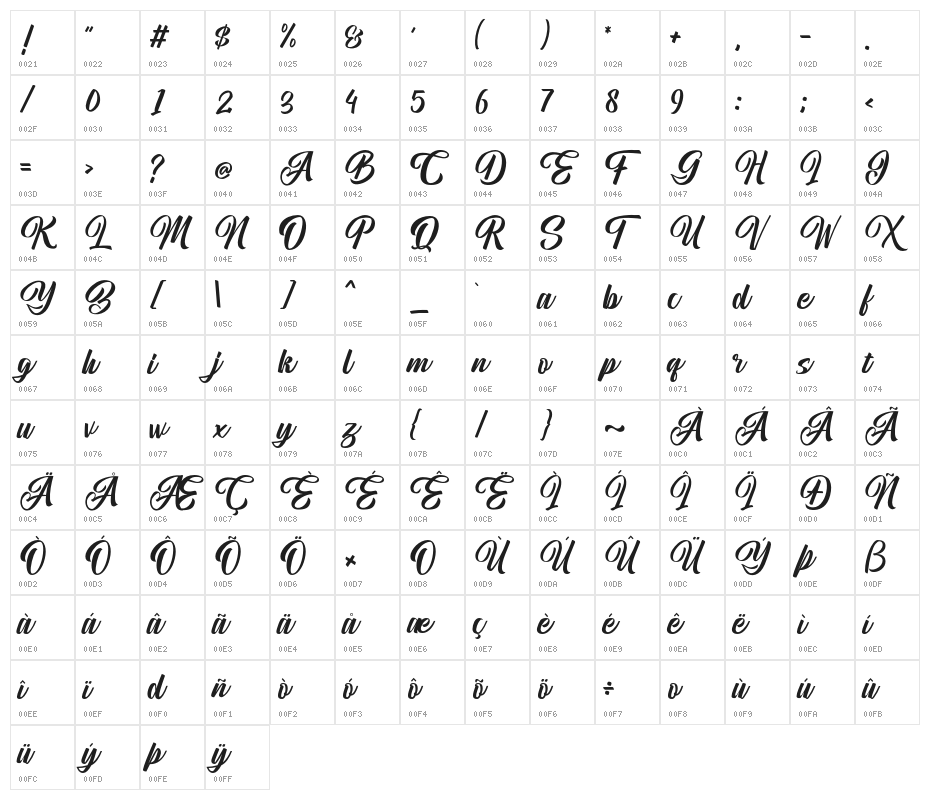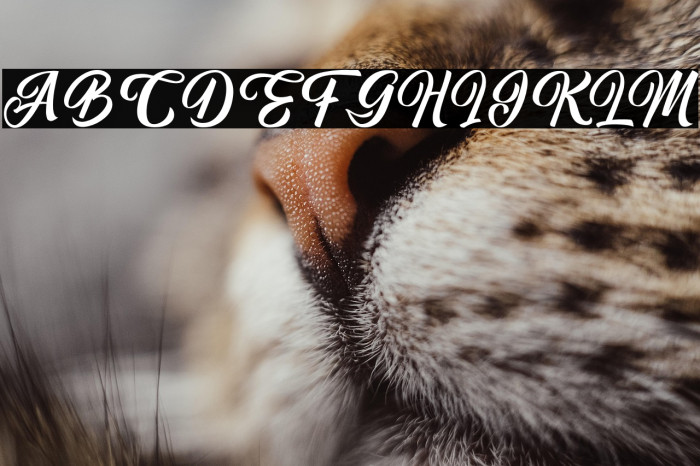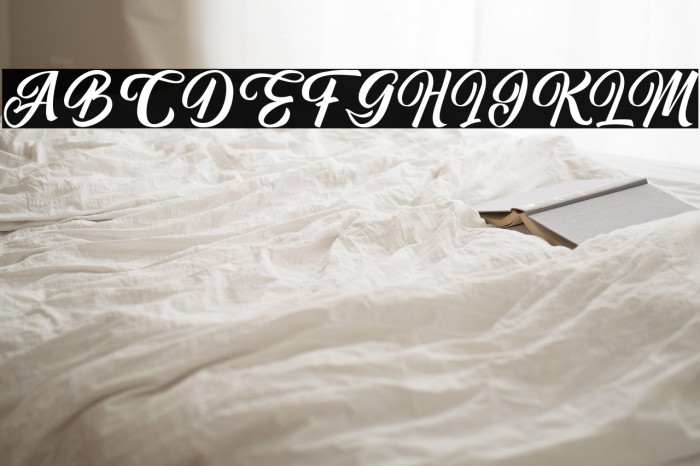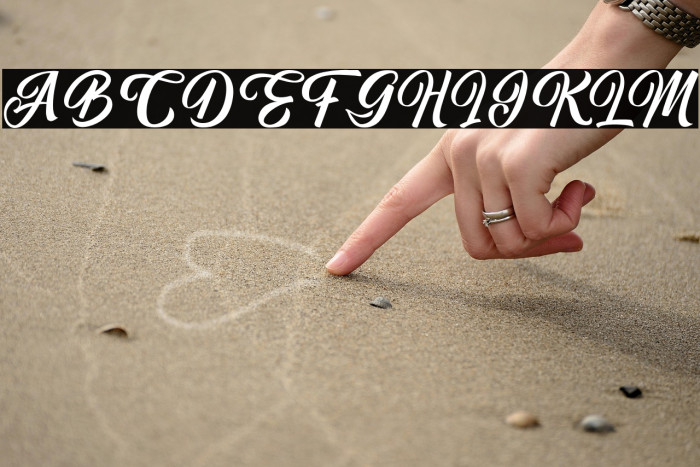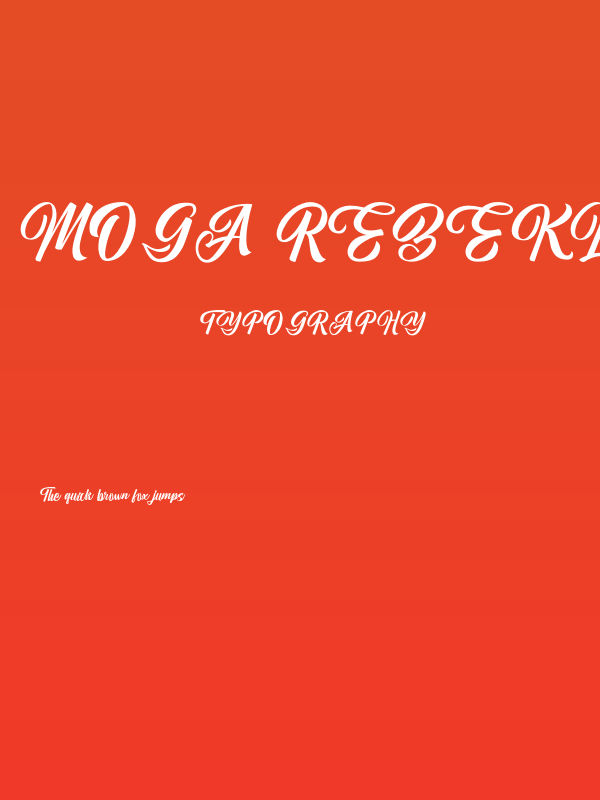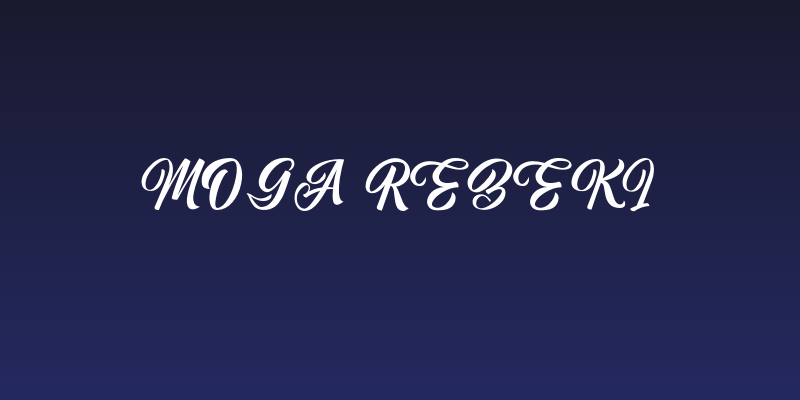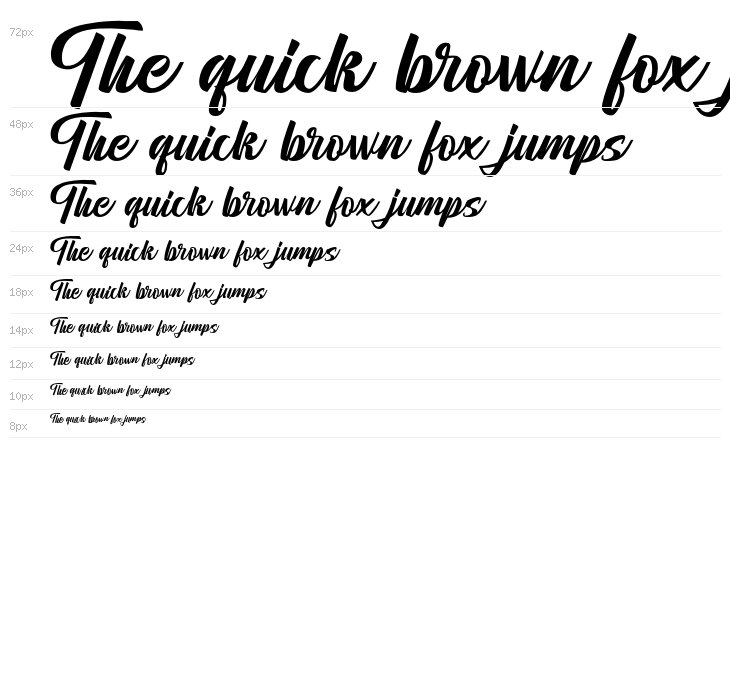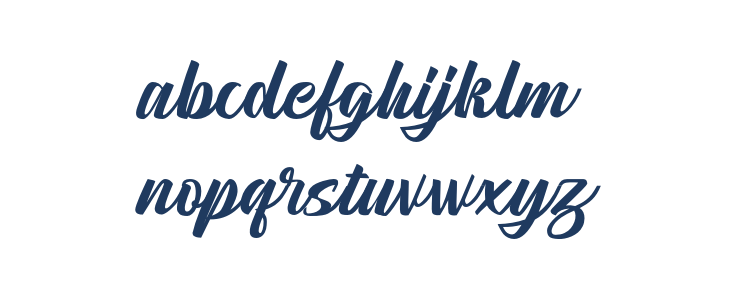
Moga Rezeki Font
Moga Rezeki Description
This font features a bold and flowing script style, characterized by its elegant and cursive letterforms. The uppercase letters are ornate with sweeping curves and flourishes, while the lowercase letters maintain a consistent, smooth flow. The numerals are distinct and maintain the same bold, cursive style, ensuring readability. Special characters are integrated seamlessly, adding to the font's versatility. The overall design is both stylish and legible, making it suitable for a variety of creative applications.